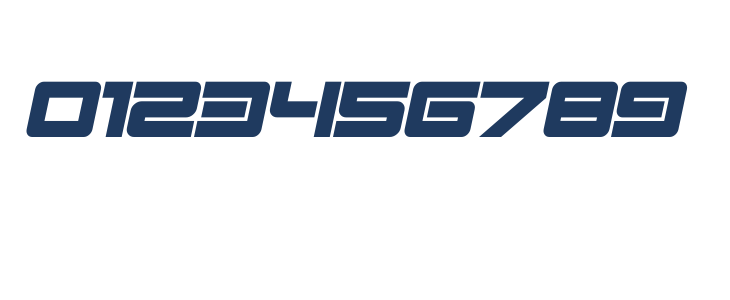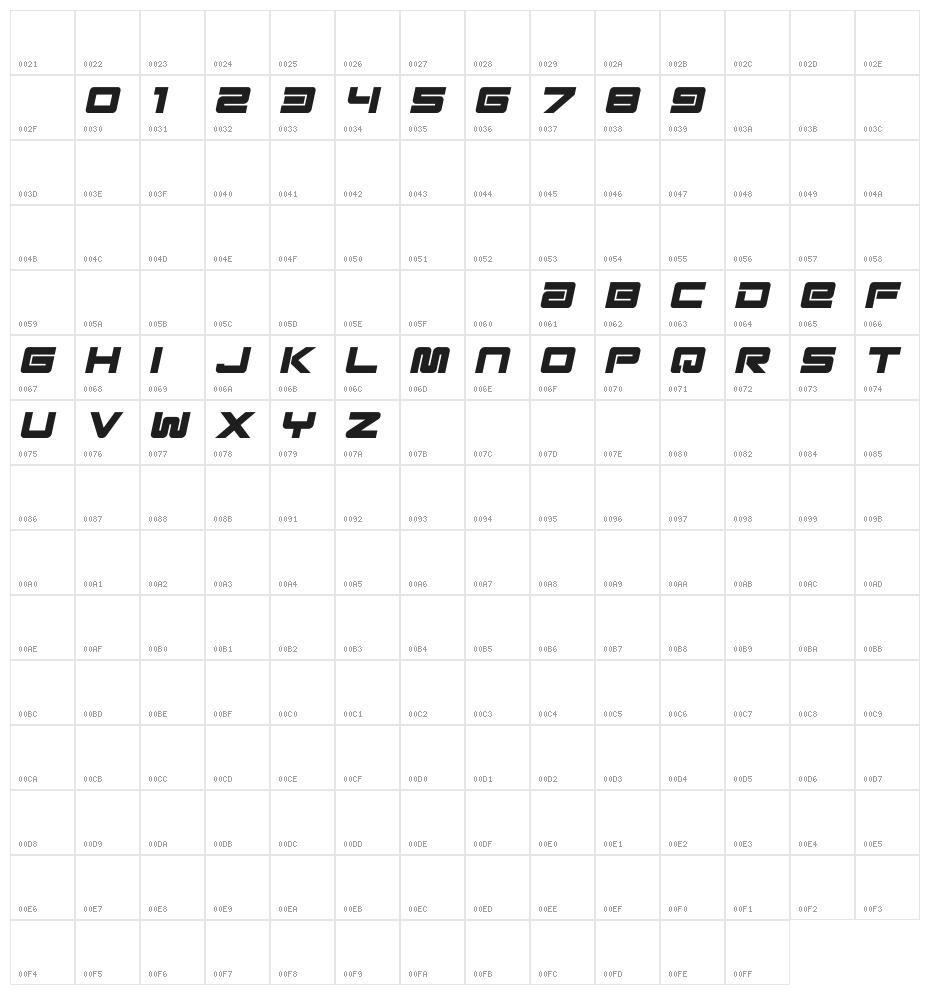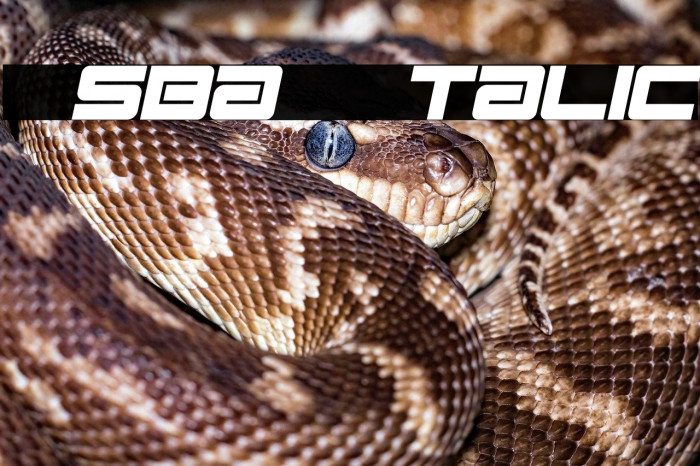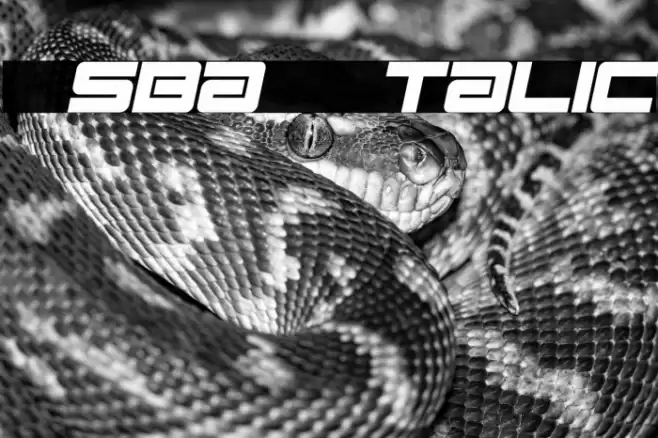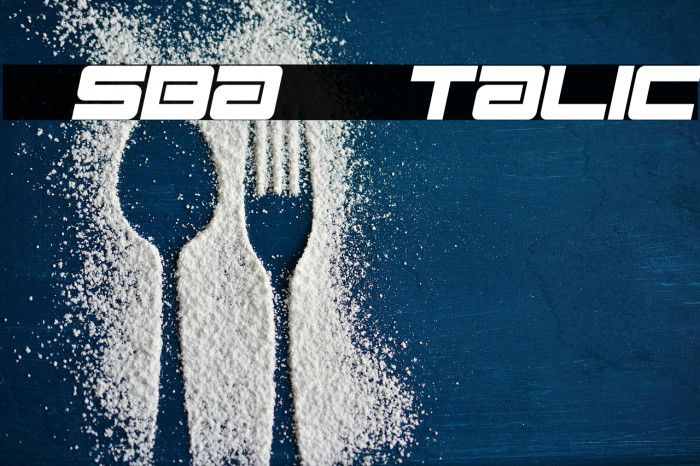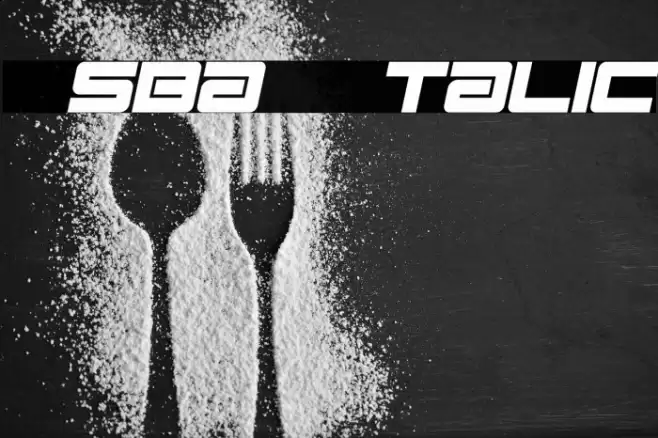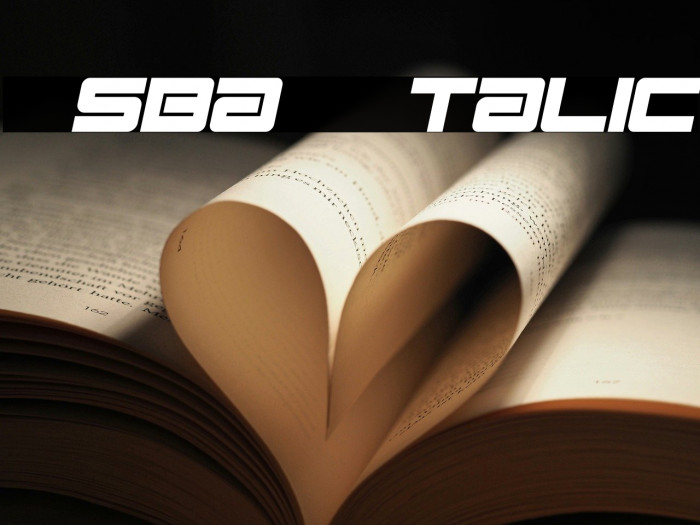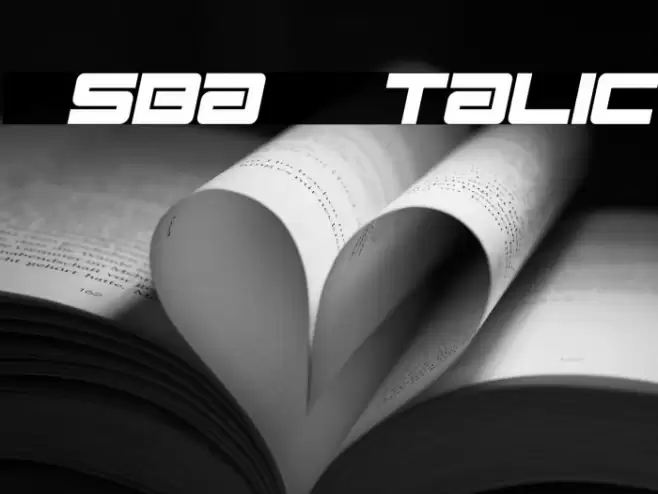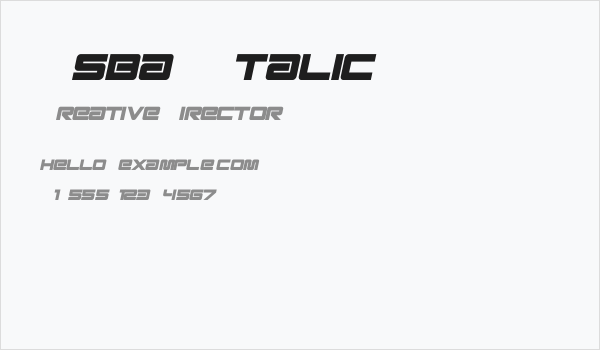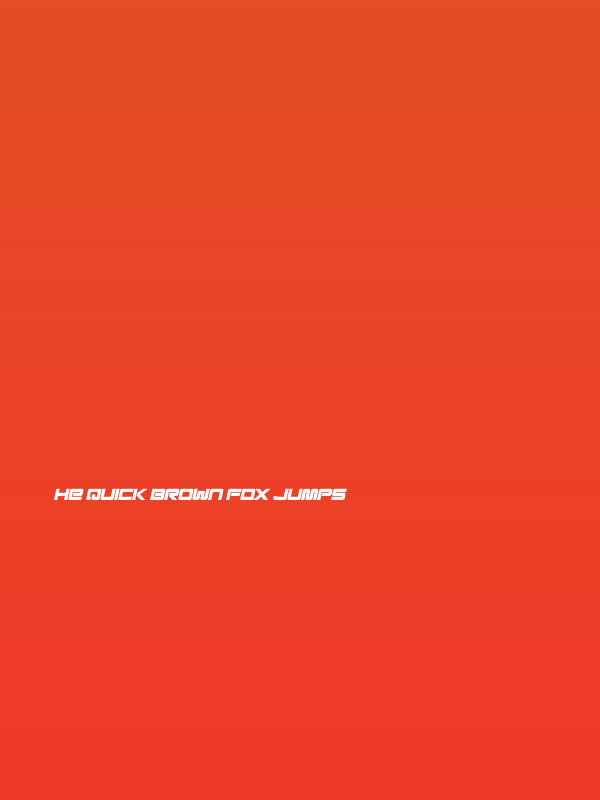
Esba - Italic Font
Esba - Italic Description
This font features a bold, futuristic design with a distinct italic slant, giving it a dynamic and forward-moving appearance. The characters are geometric and angular, with sharp edges and a consistent stroke width that conveys a sense of strength and modernity. The uppercase letters are particularly striking, with unique shapes that make each character stand out. The numerals follow the same design principles, ensuring a cohesive look across all characters. This font is well-suited for projects that require a bold and modern aesthetic.
| Use Case | Logos, Headlines |
| Proposed Projects | Ideal for technology branding, sports team logos, video game titles, and sci-fi movie posters. |